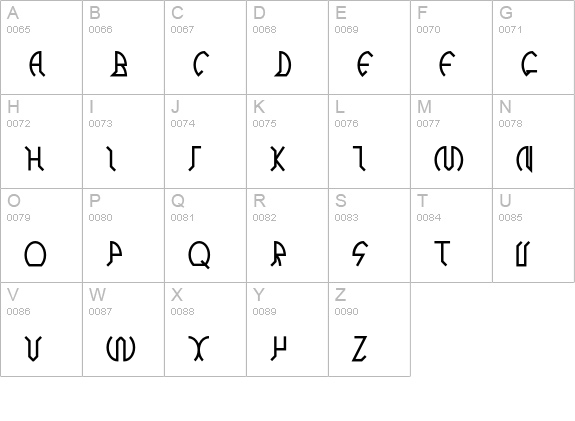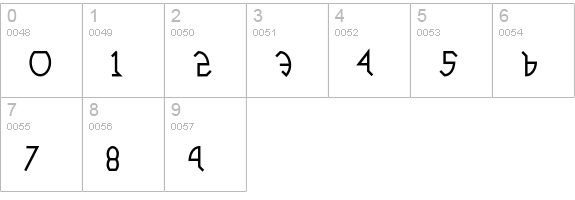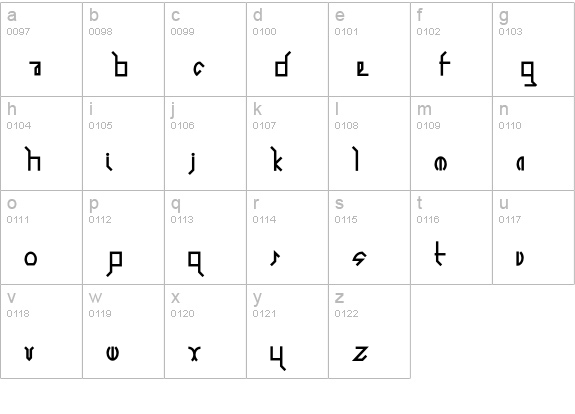
Kitsch Font Details
Introducing Kitsch, a whimsical and playful font that brings a touch of retro charm to your designs. With its quirky and imaginative letterforms, Kitsch is perfect for adding a fun and lighthearted vibe to any project. This font exudes a sense of nostalgia, reminiscent of the vibrant and eclectic designs of the 1960s and 70s. Its bold and curvaceous characters carry a sense of energy and excitement, making it ideal for eye-catching headlines, posters, branding, and more. Kitsch is not only visually captivating, but it also offers versatility in its usage. Whether you're looking to create a vintage-inspired logo, a funky party invitation, or even a unique T-shirt design, this font has got you covered. And the best part? Kitsch is available for free download at FontsMarket.com. That's right, you can now easily access and enjoy this delightful font without any cost. With just a few clicks, you can add a touch of Kitsch's distinctive personality to your creative projects. So, why wait? Unleash your creativity and let Kitsch inject a dose of retro charm into your designs. Download this fabulous font today, free of charge, at FontsMarket.com and experience the joy of making your projects truly stand out.